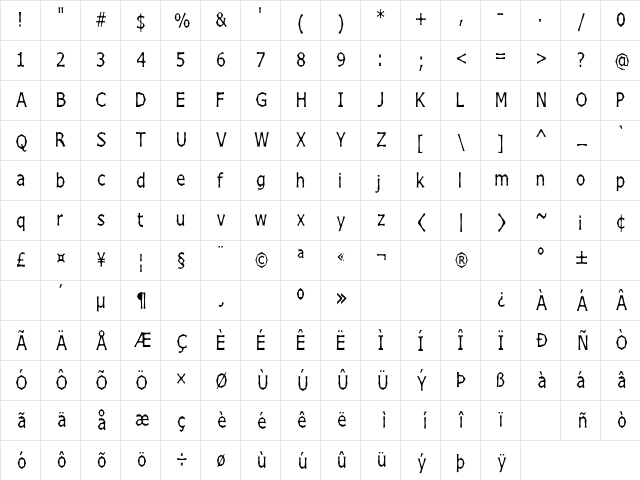
Chizzler Thin Regular
Design Context for Chizzler Thin Typeface
Chizzler Thin is a composed and adaptable typeface that performs quietly and consistently across a wide range of design contexts. Its slender proportions lend an understated elegance to any composition.
Pro Tip: Use Chizzler Thin in both headline and body roles to test its range before committing to a single application.